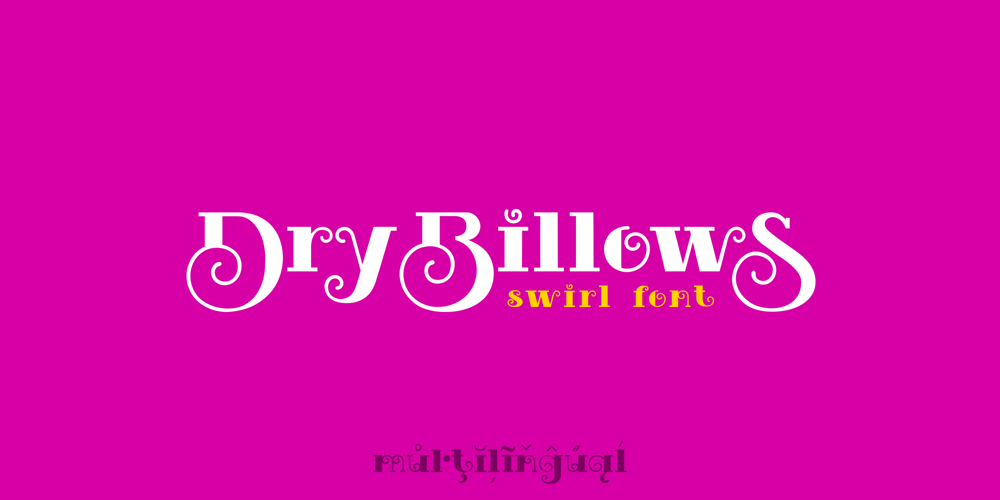
Dry Billow S Font Family was designed by Roland Hüse and published by Sentavio. Dry Billow S contains 1 styles and family package options. DryBillows Font is unusual decorative font carefully designed and well looking with Latin Extended character set.It is good for Text and Headers with lowercase and uppercase letters both!DryBillows ideally works in luxury, fashion, cosmetics, wine and food areas.Please see the large preview images to see how it works.